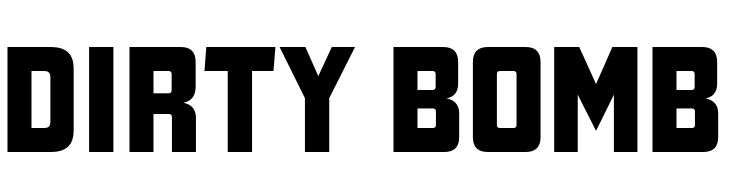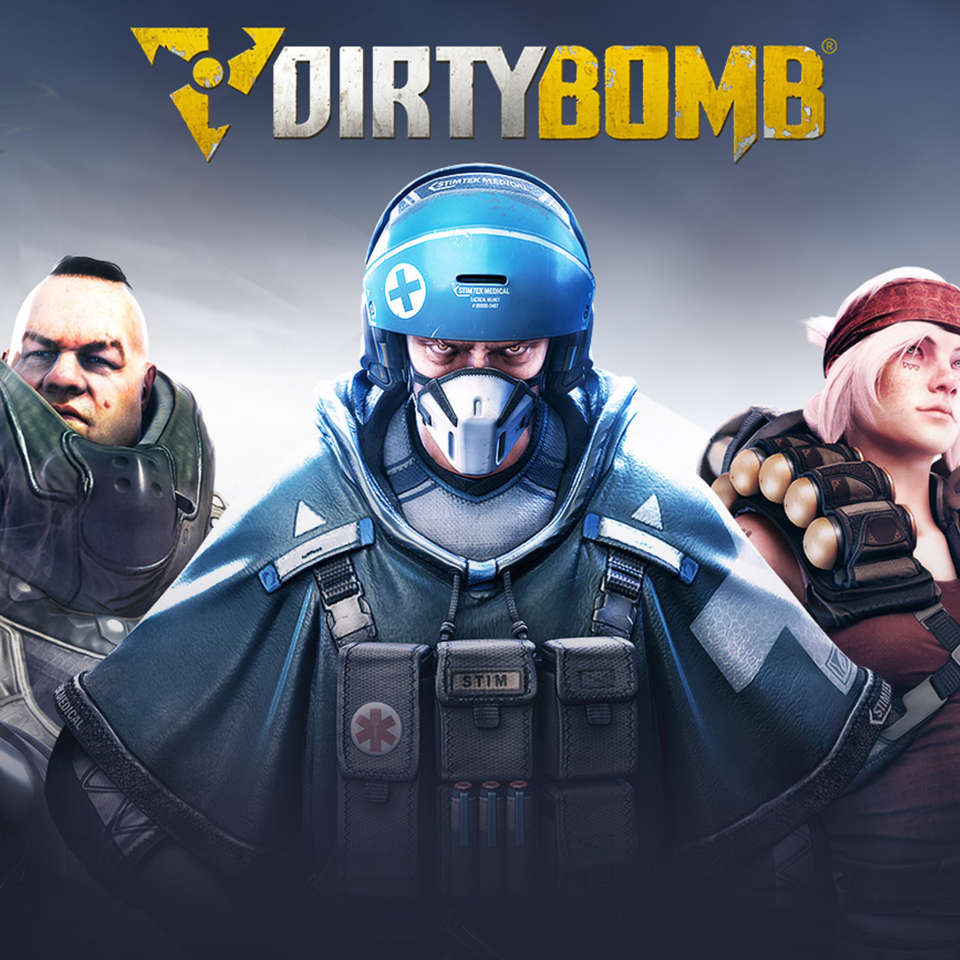
Dirty Bomb Font
Fonts in UseDirty Bomb is a free-to-play online first-person shooter video game developed by Splash Damage and published by Nexon. The game is set in a post-apocalyptic London and features objective-based gameplay with a focus on team coordination and strategic gameplay.
It's likely that the game logo was uniquely created, but a similar font option would be Gaz Heavy designed by Typodermic. However, the sans-serif font used for headlines on the official website and within the game is DirtyBomb NX Black, which is downloadable for free from the Fonts Used Section.